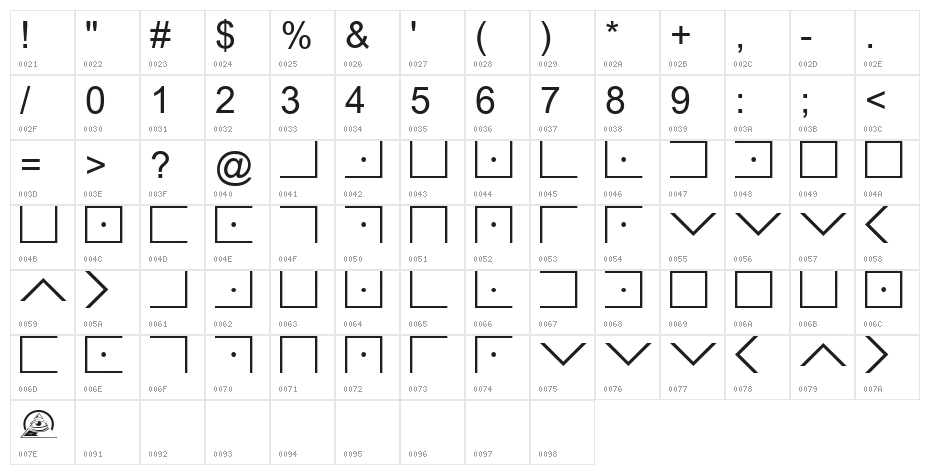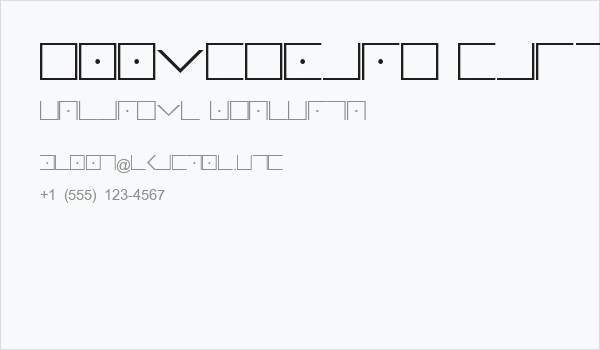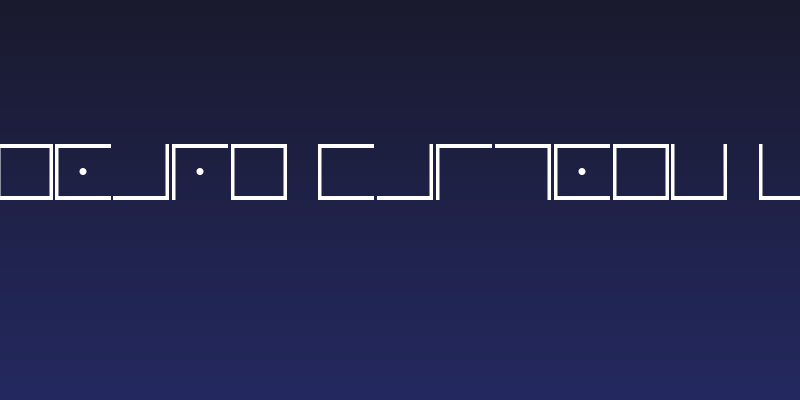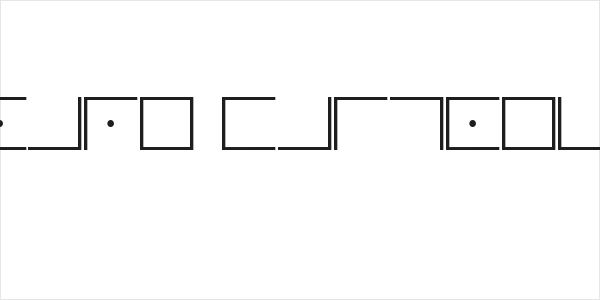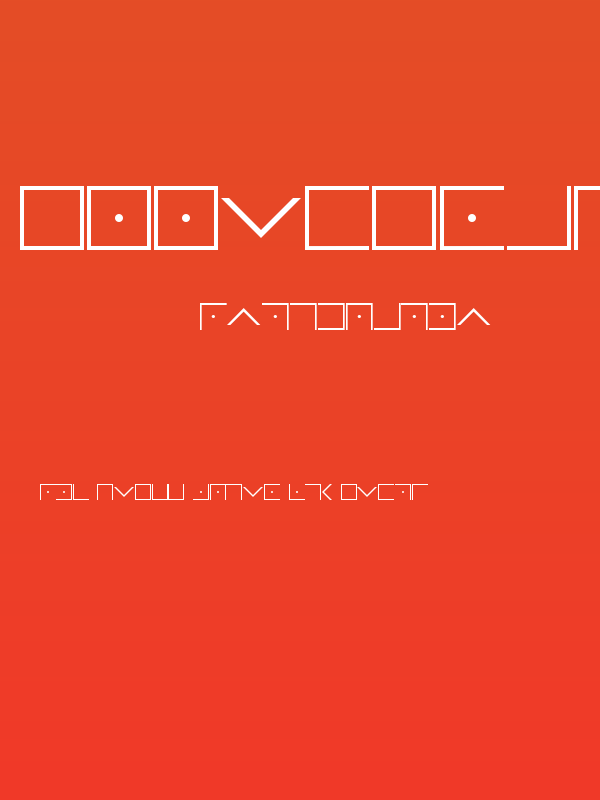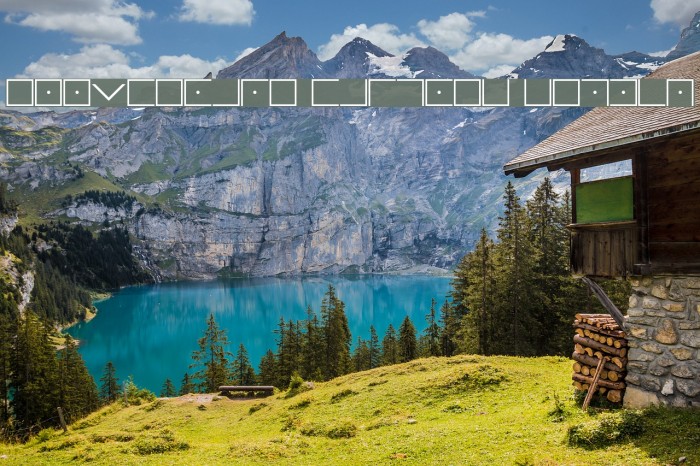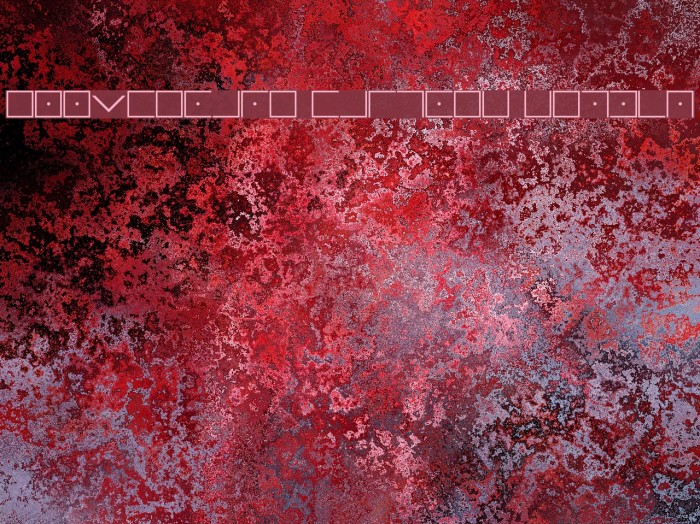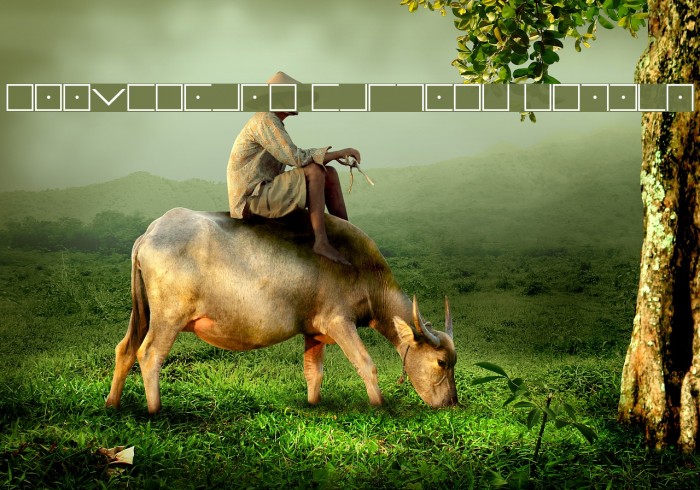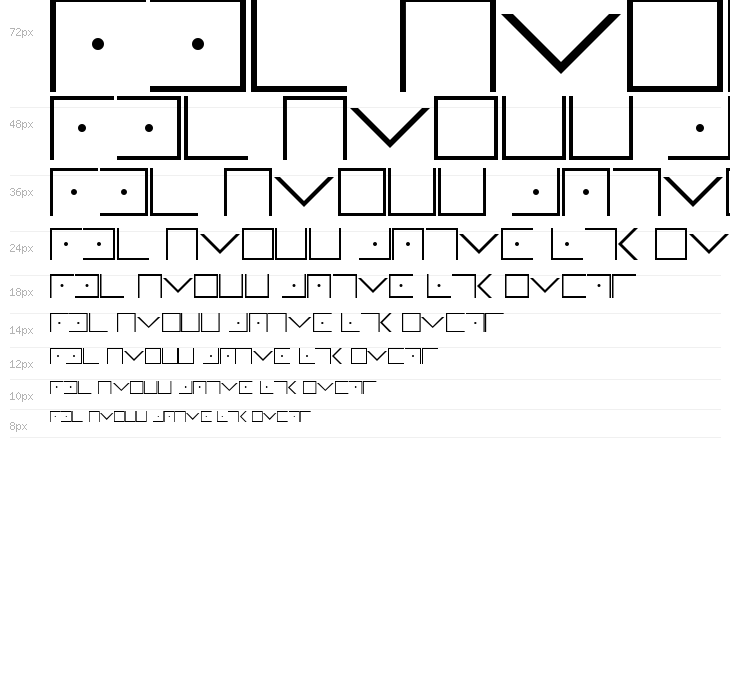
Illuminati Masonic Cipher Font
Illuminati Masonic Cipher Description
This font features a unique and cryptic design, reminiscent of ancient symbols or secret codes. Each character is composed of geometric shapes, often incorporating dots and lines that give it a mysterious and esoteric feel. The uppercase and lowercase letters are distinct, yet maintain a consistent style that suggests a cipher or coded language. The numerals are bold and clear, contrasting with the more intricate letter designs. Special characters are included, maintaining the theme of secrecy and symbolism. This font is ideal for projects that require an enigmatic or mystical aesthetic.
| Overall Style | Mystical, Cryptic, Esoteric |
| Use Case | Logos, Posters, Themed Events |
| Proposed Projects | Ideal for escape room themes, mystery novels, secret society branding, or any project requiring a cryptic, enigmatic look. |